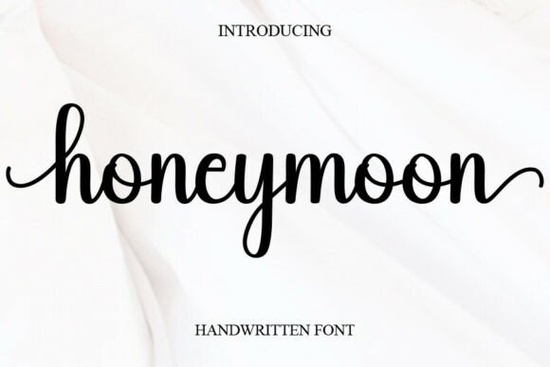
If you're working on a design that calls for warmth, intimacy, and a touch of handwritten charm, the Honeymoon Font might be exactly what you need. This sweet, cursive script brings a gentle elegance to everything from wedding invitations to boutique branding without feeling overly formal or stiff. It’s the kind of typeface that feels personal, like a love note slipped into your pocket.
What makes Honeymoon stand out among other script fonts is its balance: it’s romantic but not fussy, fluid but still legible, and versatile enough for both digital and print projects. Whether you’re designing a custom gift tag, a fashion lookbook, or social media graphics for a small business, this font adds personality without overwhelming your layout.
When should you use a font like Honeymoon?
Honeymoon shines in contexts where emotion and authenticity matter. Think:
- Wedding stationery – save-the-dates, menus, seating charts
- Handmade product labels – candles, soaps, artisanal foods
- Greeting cards – especially for anniversaries, baby showers, or heartfelt messages
- Branding for lifestyle businesses – florists, bakeries, boutiques
- Print-on-demand designs – mugs, tote bags, or wall art with uplifting quotes
Because it’s a handwritten style, it pairs beautifully with clean sans-serif fonts for contrast. Try combining it with something minimal like those found in our minimalist script collection to keep your design grounded and readable.
How does Honeymoon compare to other romantic scripts?
Not all cursive fonts are created equal. Some lean too calligraphic (great for formal events, less so for everyday branding), while others feel too casual or uneven. Honeymoon strikes a middle ground it has graceful curves and subtle swashes, but maintains consistent spacing and rhythm.
If you enjoy Honeymoon, you might also appreciate similar styles like Camila Bryan, which offers a slightly bolder flow, or the delicate bounce of Sister Font. For warmer, sun-drenched vibes say, for a beach wedding or summer campaign the beach and summer script fonts category includes airy alternatives that complement Honeymoon’s mood without competing with it.
Practical tips for using Honeymoon effectively
Like any script font, Honeymoon works best when given room to breathe. Avoid cramming it into tight spaces or using it for long paragraphs. Instead, reserve it for headlines, short phrases, or accent text. Here’s how to get the most out of it:
- Use OpenType features if available. Many versions include alternate characters or ligatures that add natural variation perfect for avoiding that “repetitive font” look.
- Adjust letter spacing slightly. A tiny increase (tracking +20 to +50) can improve readability, especially at smaller sizes.
- Pair with neutral backgrounds. Soft textures like linen, watercolor washes, or muted pastels let the font’s details shine without visual clutter.
- Avoid all caps. Honeymoon is designed as a lowercase-dominant script; uppercase letters are meant for initials or accents, not full words.
And remember: while it’s tempting to layer multiple decorative fonts, one strong script like Honeymoon is often enough. If you need a second typeface, choose something simple and functional like the understated choices in our Camila Bryan pairing suggestions.
Who is this font really for?
Honeymoon isn’t just for wedding planners. Print-on-demand sellers use it to create bestselling quote mugs. Small bakery owners feature it on packaging to convey homemade care. Crafters personalize embroidery patterns with its flowing lines. Even marketers use it in limited-run promotions to evoke sincerity and joy.
The key is matching the font’s emotional tone to your audience’s expectations. If your brand or project values warmth, approachability, and a human touch, Honeymoon delivers without needing flashy effects or complex layouts.